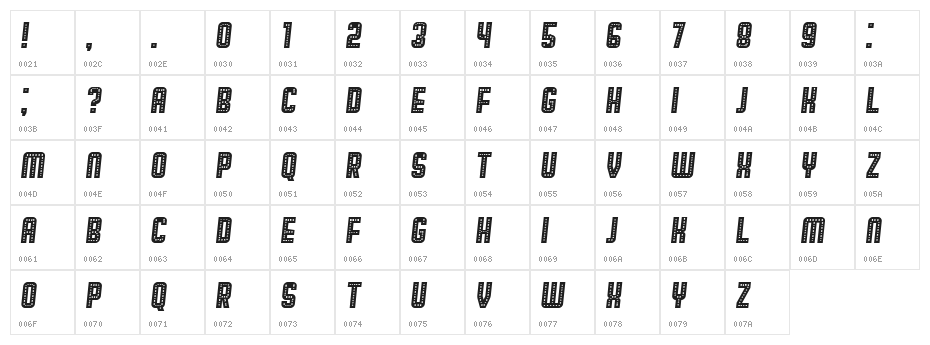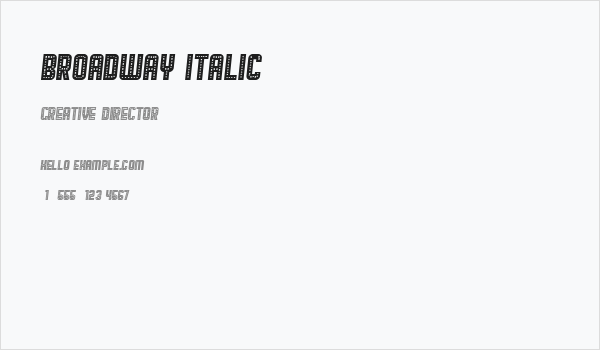
Broadway Italic Font
Broadway Italic Description
This font features a bold, decorative style with a distinct dotted pattern within each character, reminiscent of marquee lights. The uppercase letters are uniform in height and width, creating a strong visual impact. The lowercase letters maintain the same dotted design, ensuring consistency across the alphabet. Numbers and special characters are also included, following the same stylistic approach. The overall appearance is eye-catching and theatrical, making it suitable for designs that require a bold statement.
| Proposed Projects | Perfect for use in posters, signage, event invitations, and any project requiring a dramatic and bold typographic presence. |